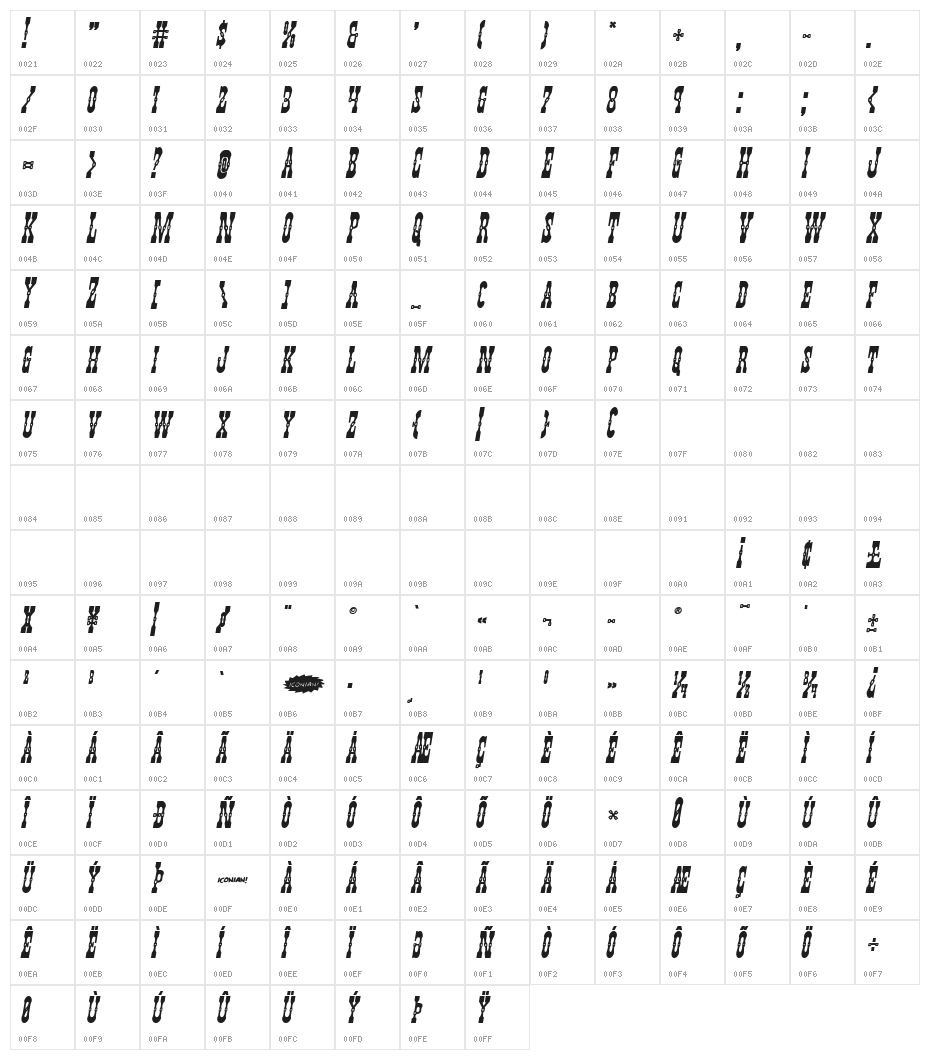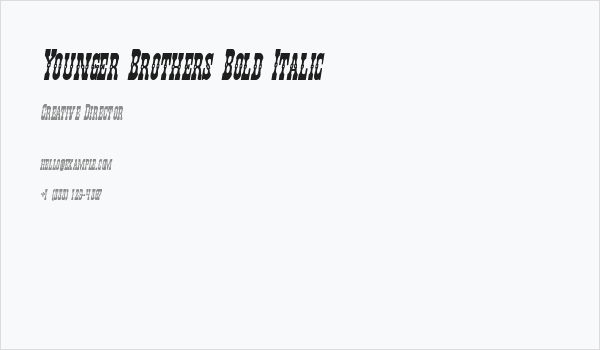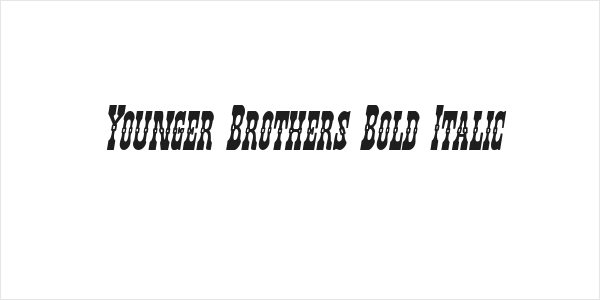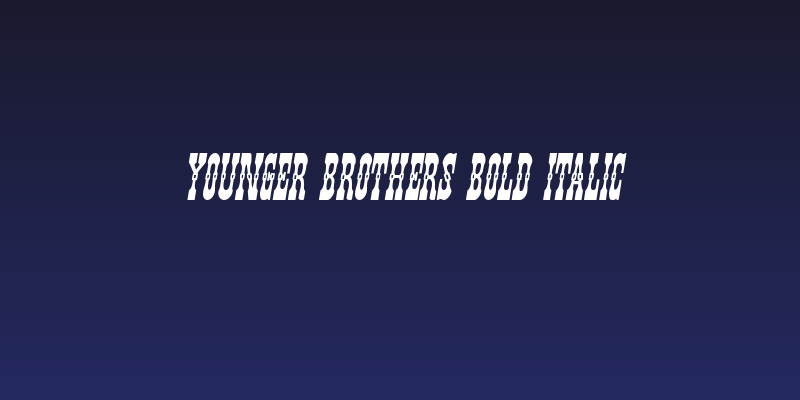
Younger Brothers Bold Italic Font
Younger Brothers Bold Italic Description
This bold and italic typeface features a distinct, decorative style with a strong presence. The characters are heavily slanted, giving a dynamic and energetic feel. The strokes are thick and consistent, providing a bold appearance that stands out. The font includes uppercase and lowercase letters, numbers, and a variety of special characters. Its unique design elements, such as the exaggerated serifs and the playful curves, make it suitable for eye-catching designs. The font's overall look is both modern and vintage, combining traditional elements with a contemporary twist.
| Overall Style | Modern, Vintage |
| Proposed Projects | Ideal for posters, logos, branding, and any project requiring a bold, eye-catching typeface. |